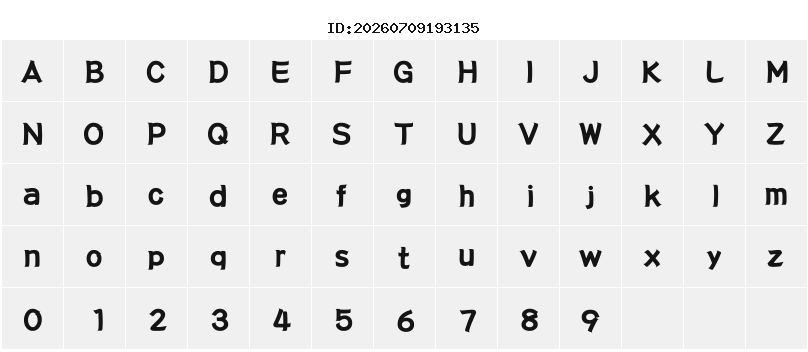
• Font Name: DFPPOP2W9-GB5
About DFPPOP2W9-GB5.ttf
DFPPOP2W9-GB5.ttf is a modern, elegant sans-serif font designed for ultimate readability and visual harmony. Perfect for branding, headlines, web design, and print materials.